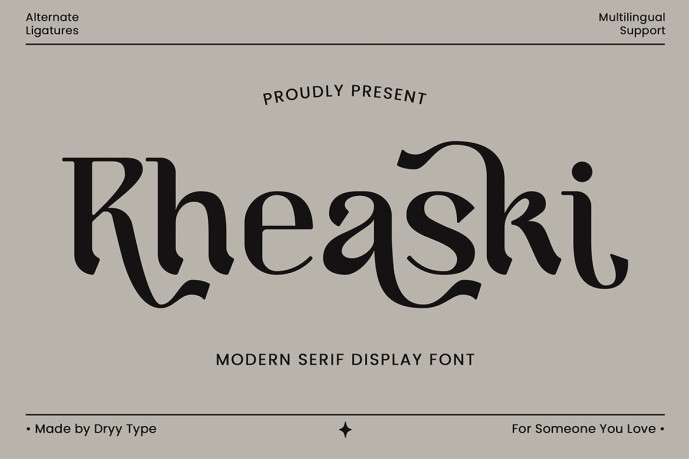
Rheaski – Modern Serif Display Font
Designer: Dryytype
Rheaski – Modern Serif Display Font that has a unique and elegant character to use. Rheaski is a beautiful and elegant Handwriting Font. This font I created is meaningful & very versatile, it goes well with a variety of designs, elevating them to the highest level. Add this font to your favorite creative ideas and watch how it becomes real!
• Features : Uppercase, Lowercase, Numerical, Alternates, Ligatures & Multilingual Support